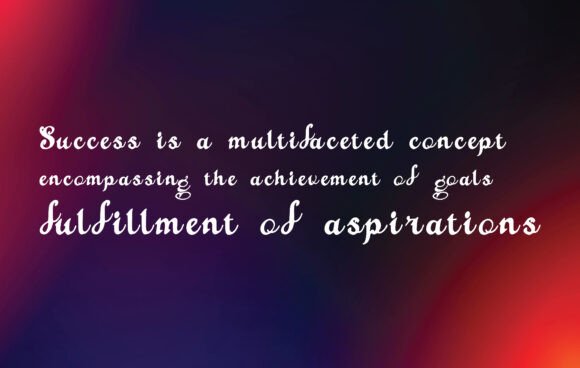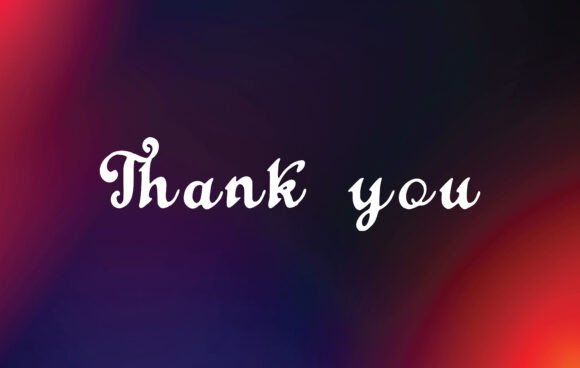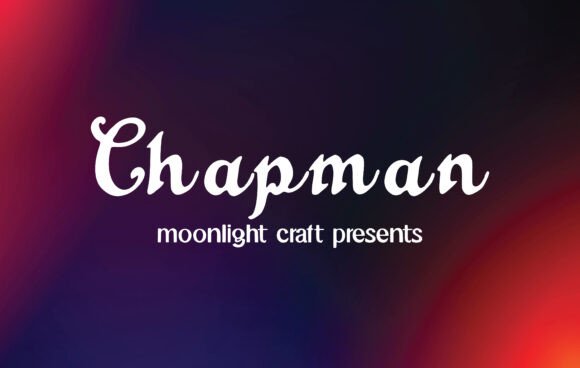
Discover the Beauty of Chapman Font: Elevate Your Designs with this Stunning Handwritten Font
Are you a designer or crafter looking for a font that can take your creative ideas to the next level? Look no further than Chapman Font, a lovely and beautiful handwritten font that is sure to impress. With its unique and elegant style, Chapman Font is the perfect choice for creating eye-catching logos, branding, and quotes that will leave a lasting impression on your audience.
The Characteristics of Chapman Font
Chapman Font is a carefully crafted handwritten font that boasts a range of characteristics that make it stand out from the crowd. Its flowing lines and delicate curves give it a feminine and sophisticated feel, making it perfect for designs that require a touch of elegance. The font is also highly legible, making it easy to read and understand, even at small sizes.
The Benefits of Using Chapman Font
So why choose Chapman Font for your design projects? Here are just a few benefits of using this stunning handwritten font:
- Elegance and Sophistication: Chapman Font adds a touch of elegance and sophistication to any design, making it perfect for high-end branding and luxury products.
- Versatility: This font is highly versatile and can be used for a wide range of design projects, from logos and branding to quotes and social media graphics.
- Legibility: Chapman Font is highly legible, making it easy to read and understand, even at small sizes.
- Uniqueness: With its unique and distinctive style, Chapman Font is sure to help your designs stand out from the crowd.
How to Use Chapman Font in Your Designs
Using Chapman Font in your designs is easy. Here are a few tips to get you started:
- Pair it with Bold Fonts: Pair Chapman Font with bold fonts for a striking contrast that will make your designs pop.
- Use it for Headlines: Use Chapman Font for headlines and titles to add a touch of elegance and sophistication to your designs.
- Add Decorations: Add decorations and graphics to your designs to enhance the beauty of Chapman Font.
Who Can Benefit from Chapman Font?
Chapman Font is perfect for a wide range of designers and crafters, including:
- Graphic Designers: Graphic designers can use Chapman Font to create stunning logos, branding, and marketing materials.
- Crafters: Crafters can use Chapman Font to create beautiful handmade cards, gift tags, and other paper crafts.
- Social Media Influencers: Social media influencers can use Chapman Font to create eye-catching social media graphics and quotes.
In conclusion, Chapman Font is a beautiful and elegant handwritten font that is sure to take your creative ideas to the next level. With its unique and distinctive style, high legibility, and versatility, Chapman Font is the perfect choice for designers and crafters looking to create stunning designs that will leave a lasting impression on their audience. So why wait? Download Chapman Font today and start elevating your designs to new heights!
- Lovely and beautiful handwritten font
- Elegant and sophisticated style
- Highly legible
- Versatile and can be used for a wide range of design projects
- Perfect for creating eye-catching logos, branding, and quotes